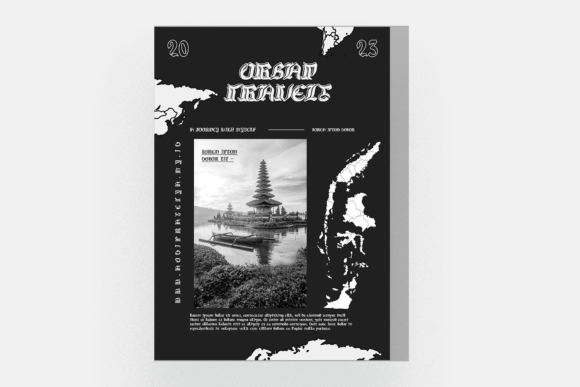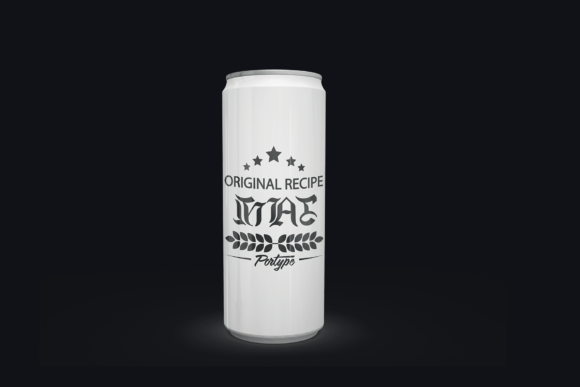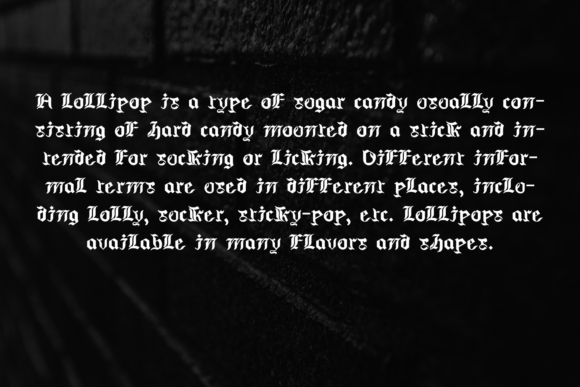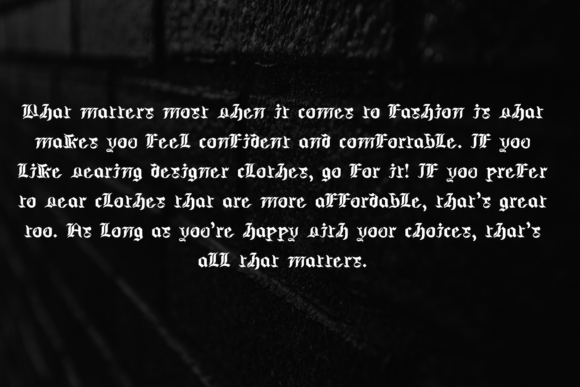
Introduction to Blackleaf Font
In the vast realm of fonts, Blackleaf emerges as a striking embodiment of gothic design.
It embodies the very essence of the Gothic font tradition, carrying with it a sense of mystique and grandeur that has captivated designers and readers alike for centuries At first glance, Blackleafโs distinctive design immediately transports us to the heart of the Gothic era.
Key Features of Blackleaf Font
Why Choose Blackleaf Font?
Blackleaf Font offers exceptional quality and versatility, making it a valuable addition to your design toolkit. Whether you’re creating for personal projects or commercial use, Blackleaf Font delivers professional results.